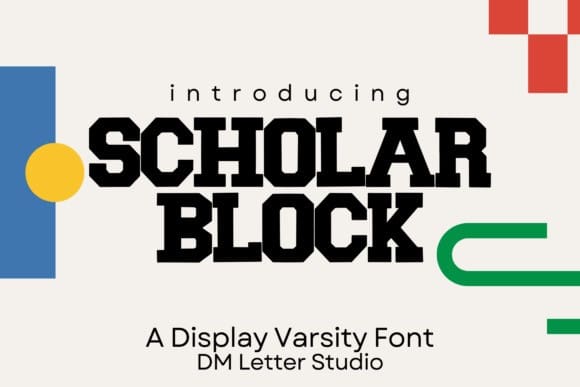
Scholar Block Font
Scholar Block Font is a bold and timeless varsity block font inspired by traditional collegiate lettering. Built with clean lines, sharp angles, and uniform proportions, this typeface is perfect for anyone looking to evoke school pride, team spirit, and a powerful sense of tradition. Whether you’re working on sports branding, school projects, event posters, or retro-inspired apparel, Scholar Block delivers strength, clarity, and presence.
As a true all-caps display font, Scholar Block brings uniformity to your headlines, logos, and bold design statements. It has been crafted to maintain balance and legibility across various sizes, from small text to oversized banners. The font captures the spirit of varsity jackets, championship trophies, and pep rally posters while offering a clean, professional finish that’s suitable for both print and digital media.
Scholar Block’s bold letterforms shine in team jerseys, back-to-school collections, and academic merchandise. It’s also ideal for digital creators designing YouTube thumbnails, social media graphics, or stream overlays that need to stand out and command attention. Pair it with its stylistic siblings (like Scholar Block Outline or Melted) for added visual interest and themed variations.